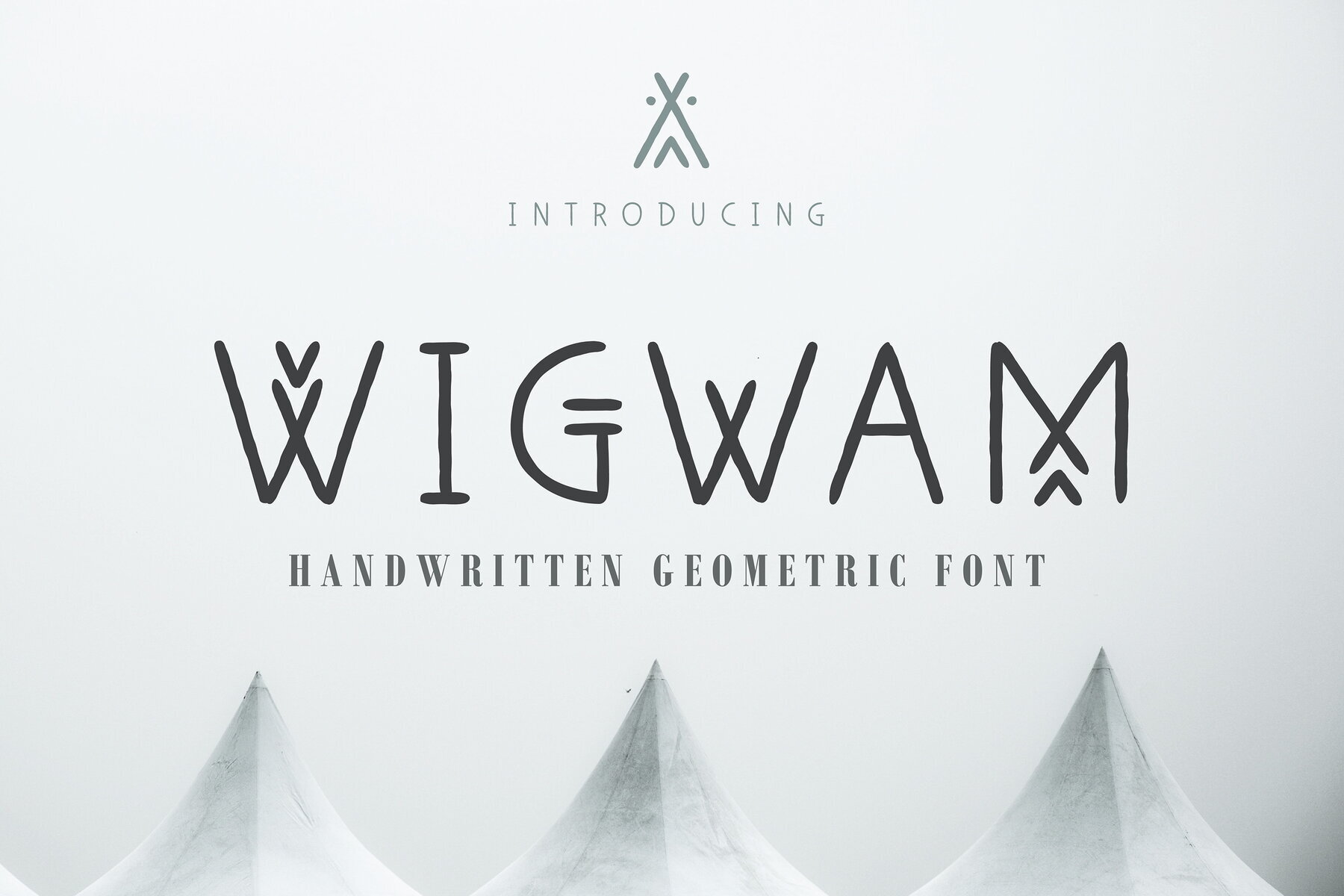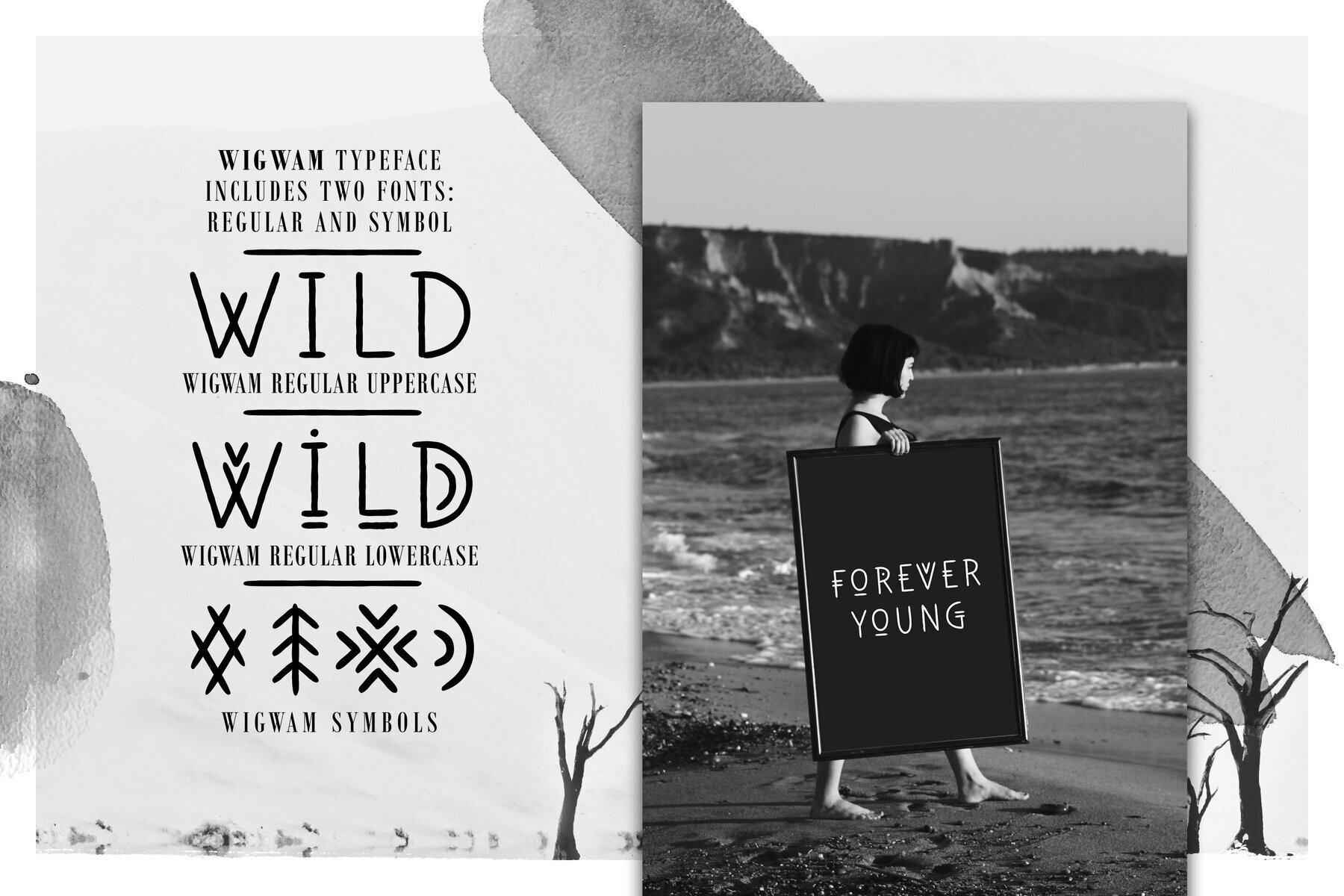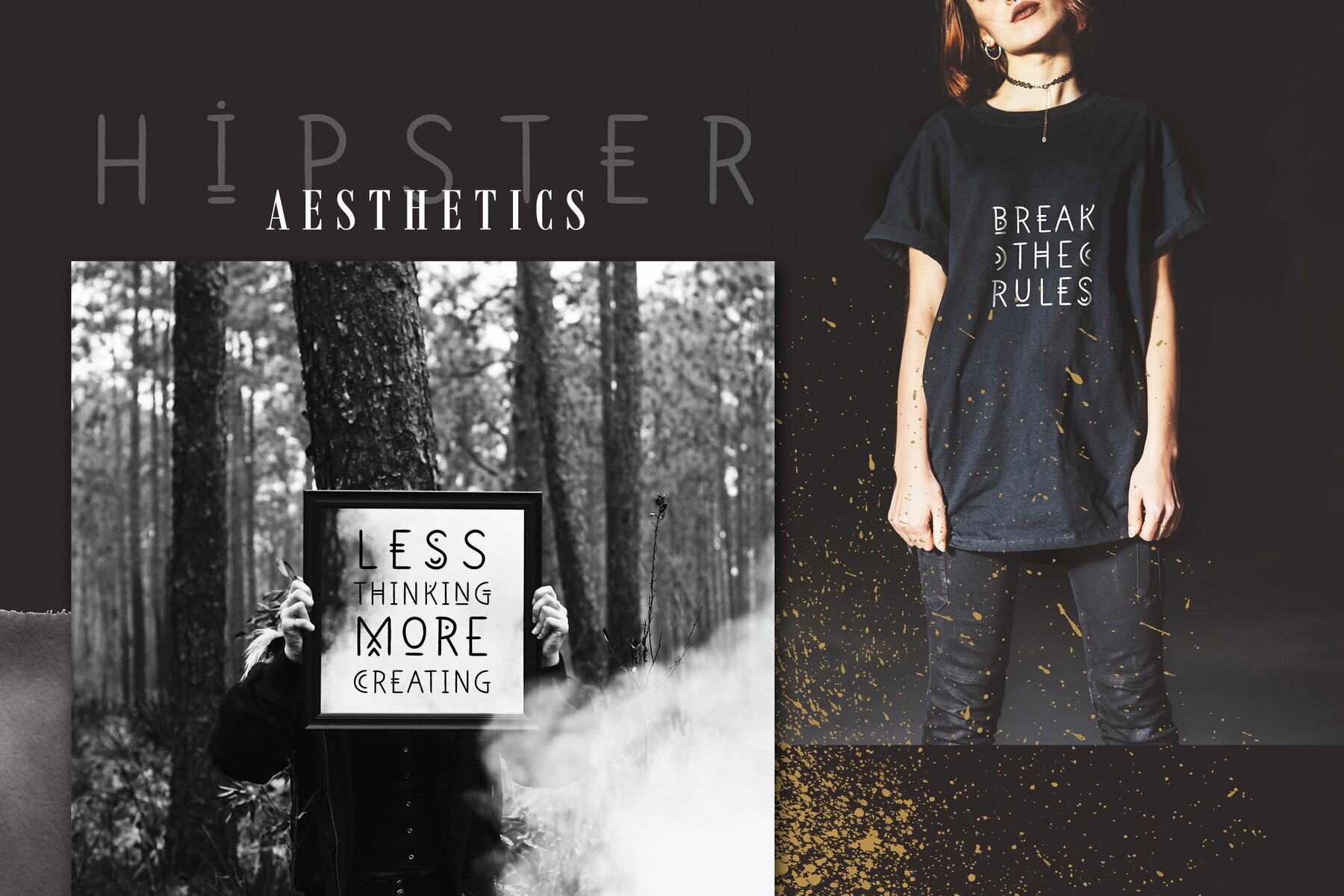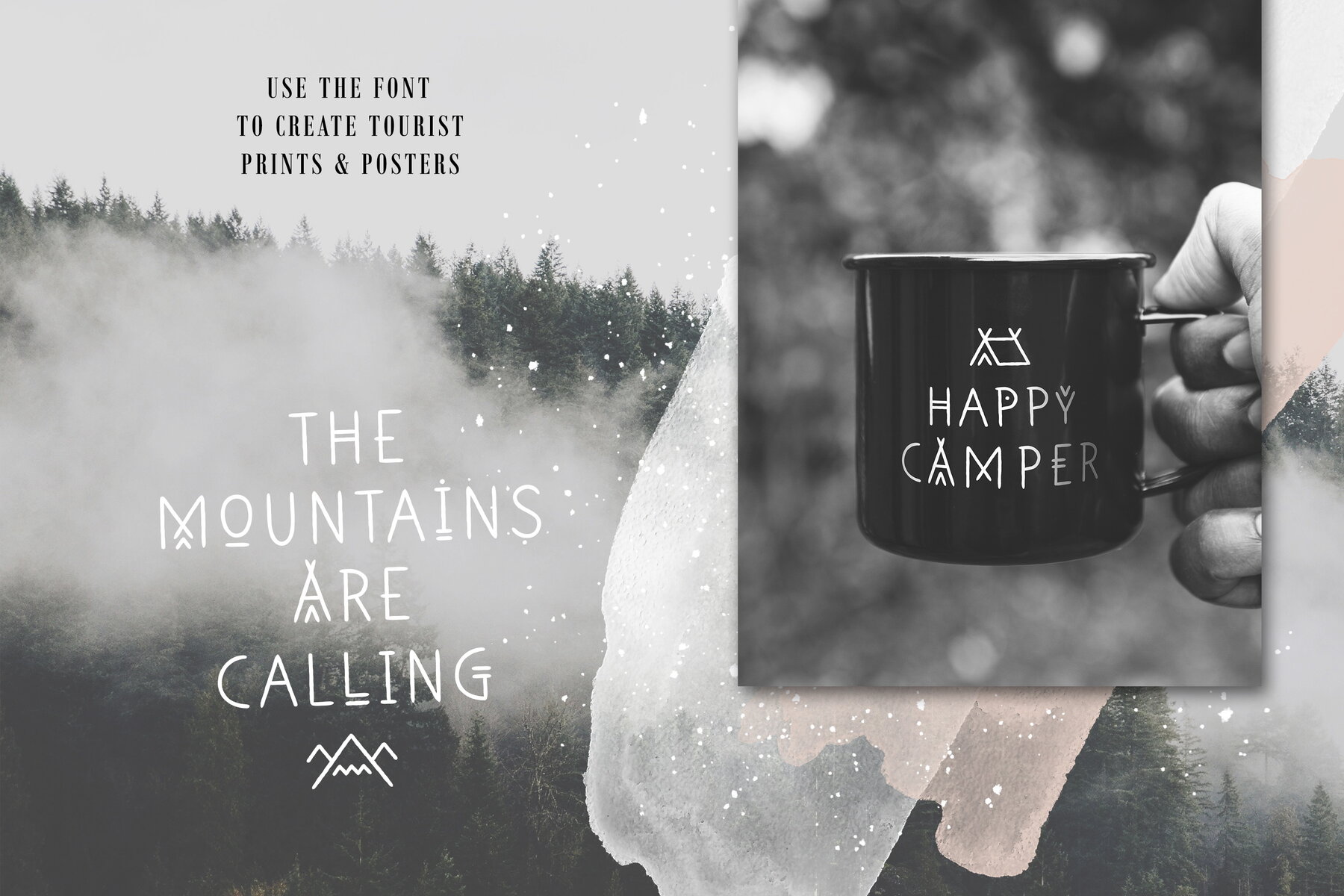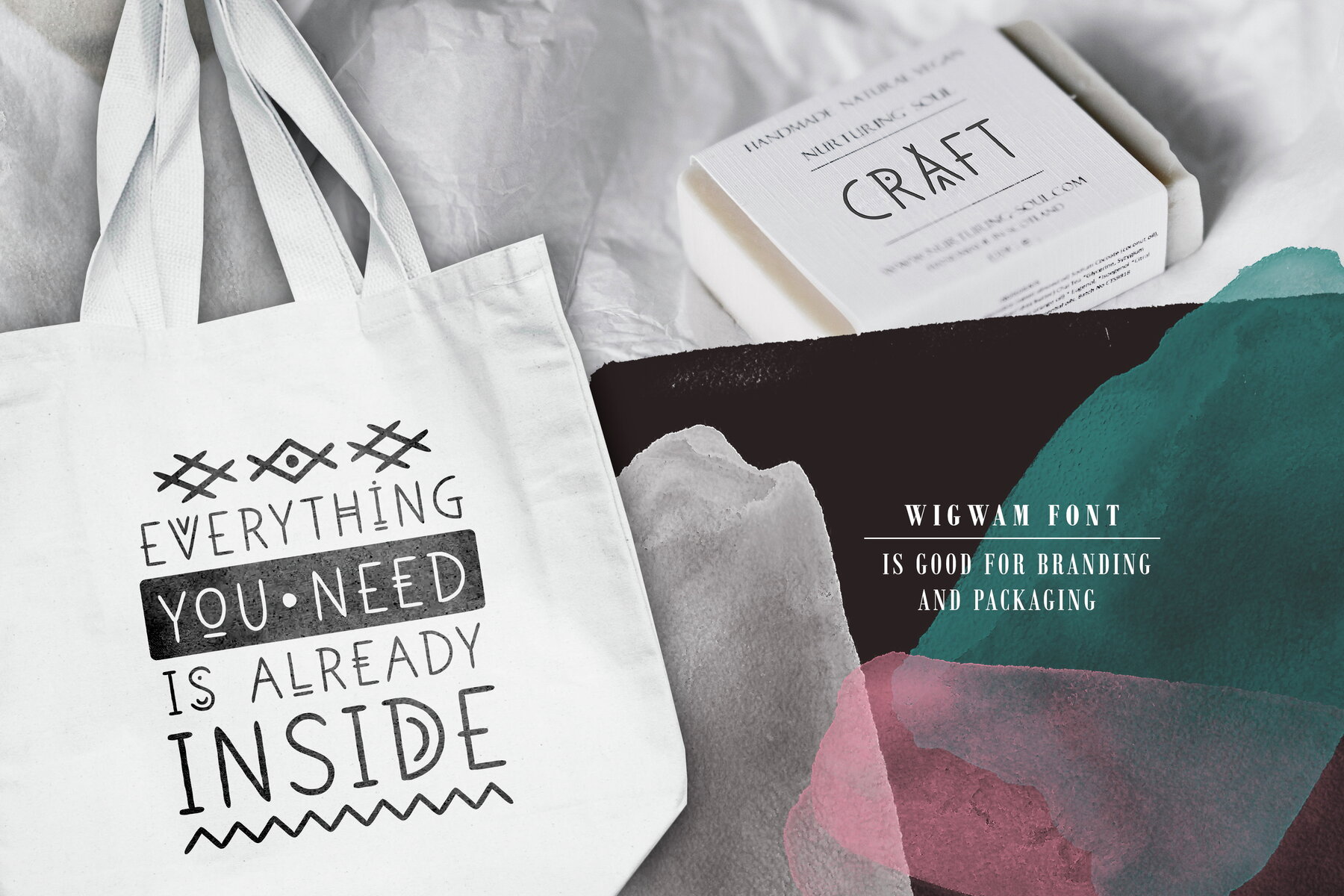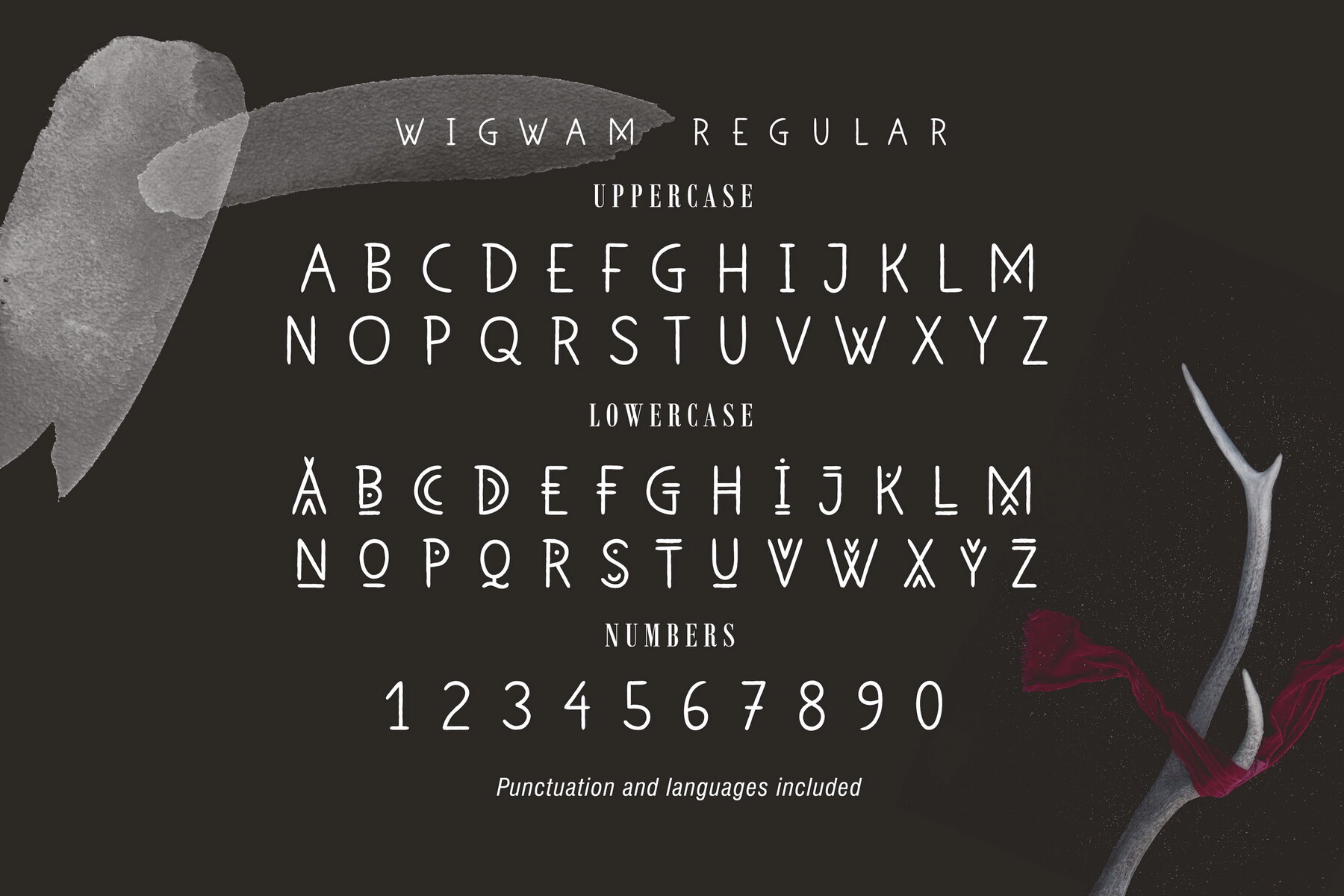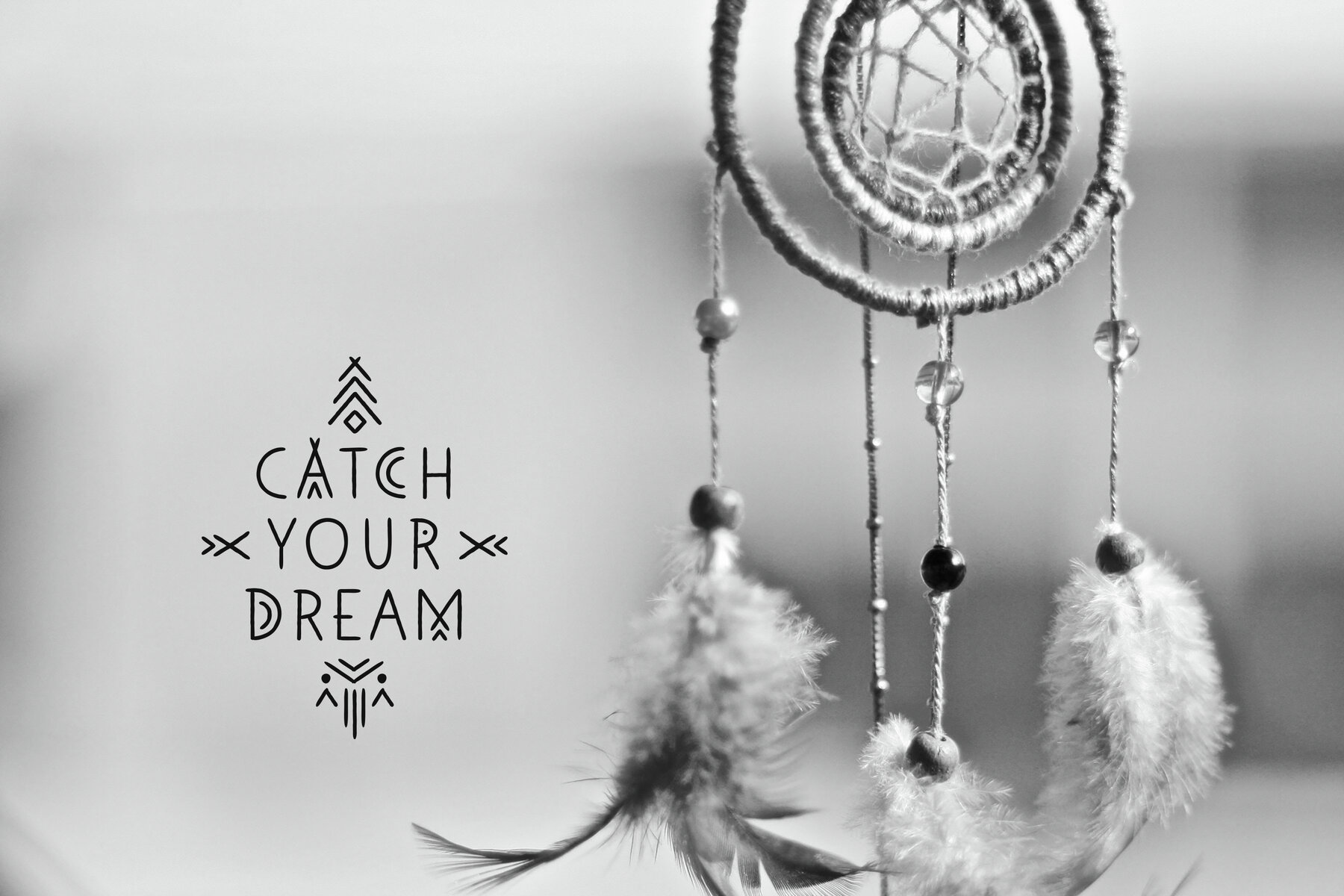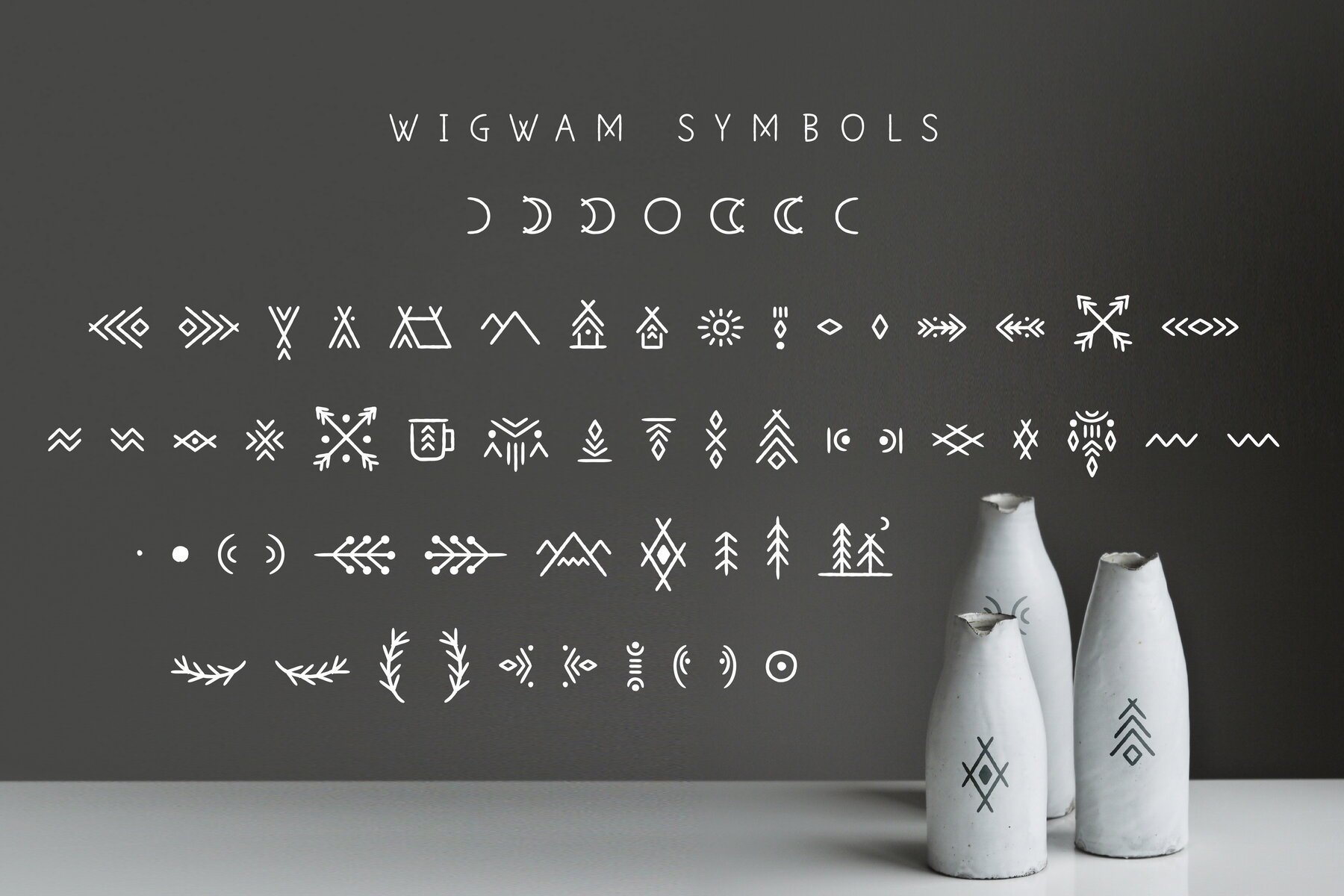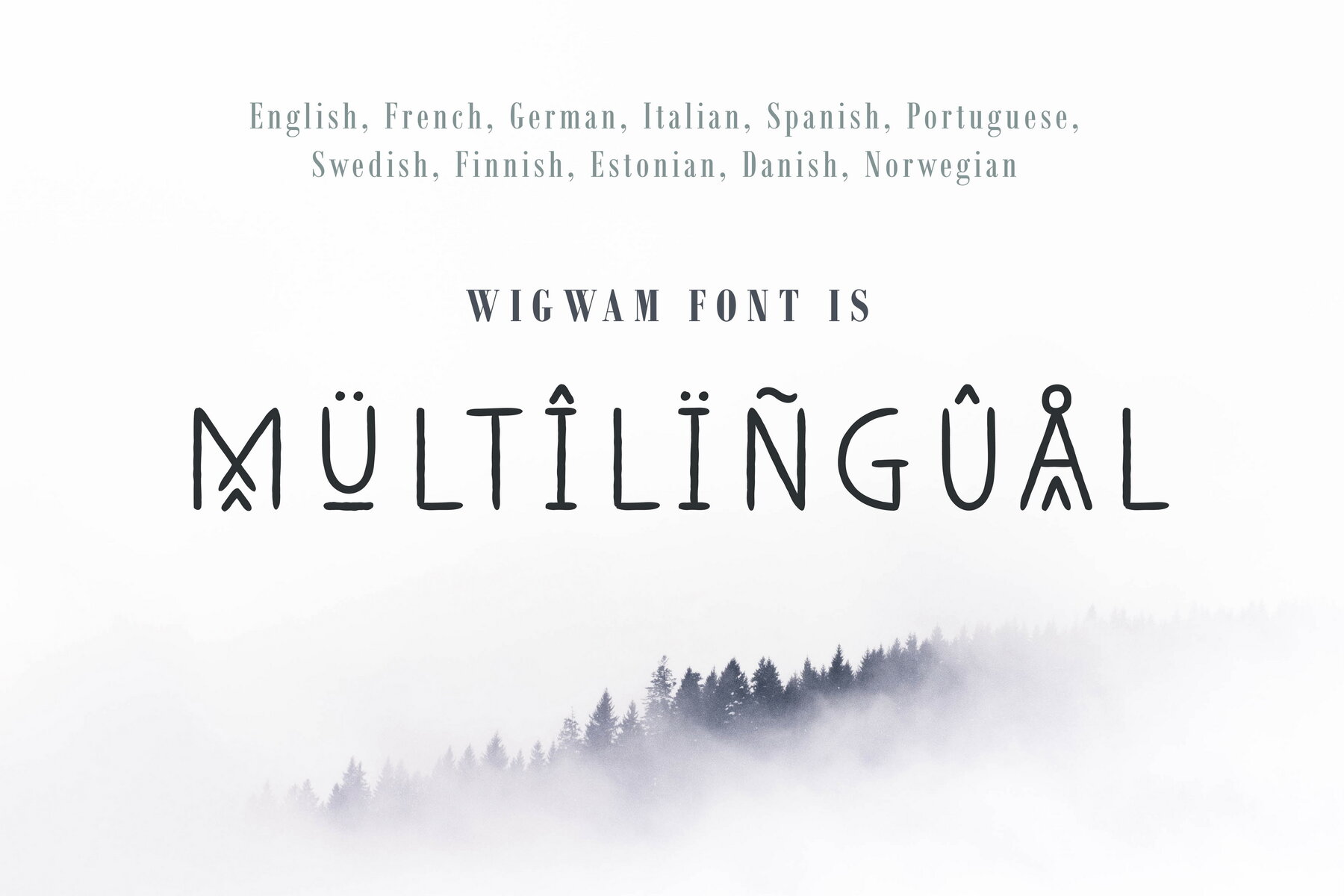
Wigwam Font
Wigwam is a linear font family that embraces a hand-drawn minimalistic style, infusing your designs with a unique and artistic touch. The lowercase letters are ornamented with geometric elements, providing a distinctive charm. The typeface features both Regular and Symbol styles, allowing you to experiment and create intriguing combinations for a variety of projects.
Ideal for crafting visually appealing lettering posters, Wigwam shines in applications ranging from camping products and hipster-style photo overlays to music album covers. Its versatility extends to branding and packaging, making it perfect for clothing prints, herbal tea packaging, handmade soap, and organic food products. Additionally, the individual letters and symbols serve well in crafting bespoke logos. The font supports a wide range of languages, including English, French, German, Italian, Spanish, Portuguese, Danish, Norwegian, Swedish, Finnish, and Estonian, making it a valuable asset for multicultural design projects.